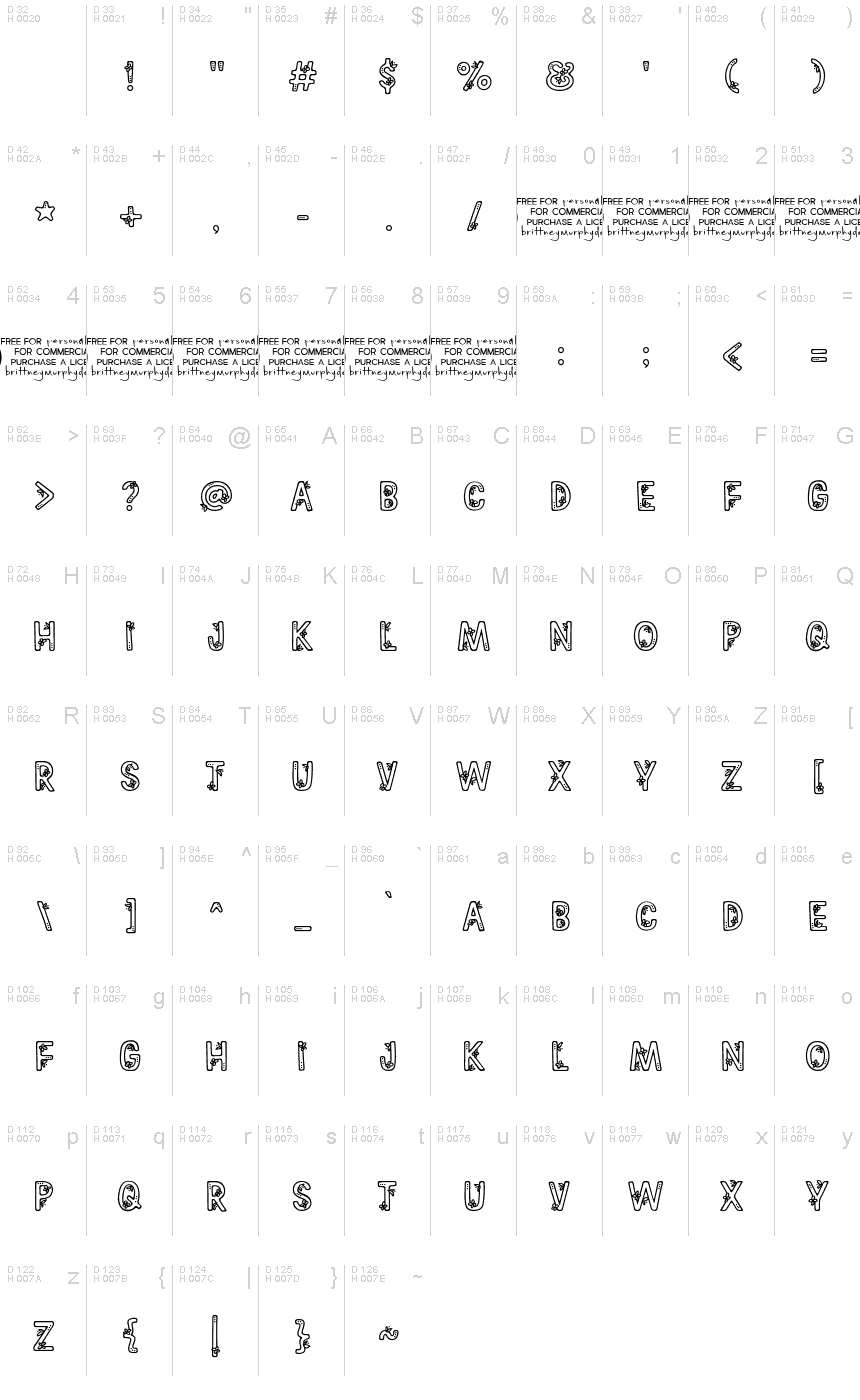
Springtime Flowers is a playful and decorative cartoon font designed by Brittney Murphy Design. With its whimsical style and flower accents, it's perfect for projects that require a touch of fun and lightheartedness, such as children's books, party invitations, or greeting cards. Use it to add a unique and charming feel to your branding or website, or to create eye-catching headlines that stand out. Springtime Flowers is the perfect font for anyone who wants to bring a little bit of joy to their design projects.
Springtime Flowers